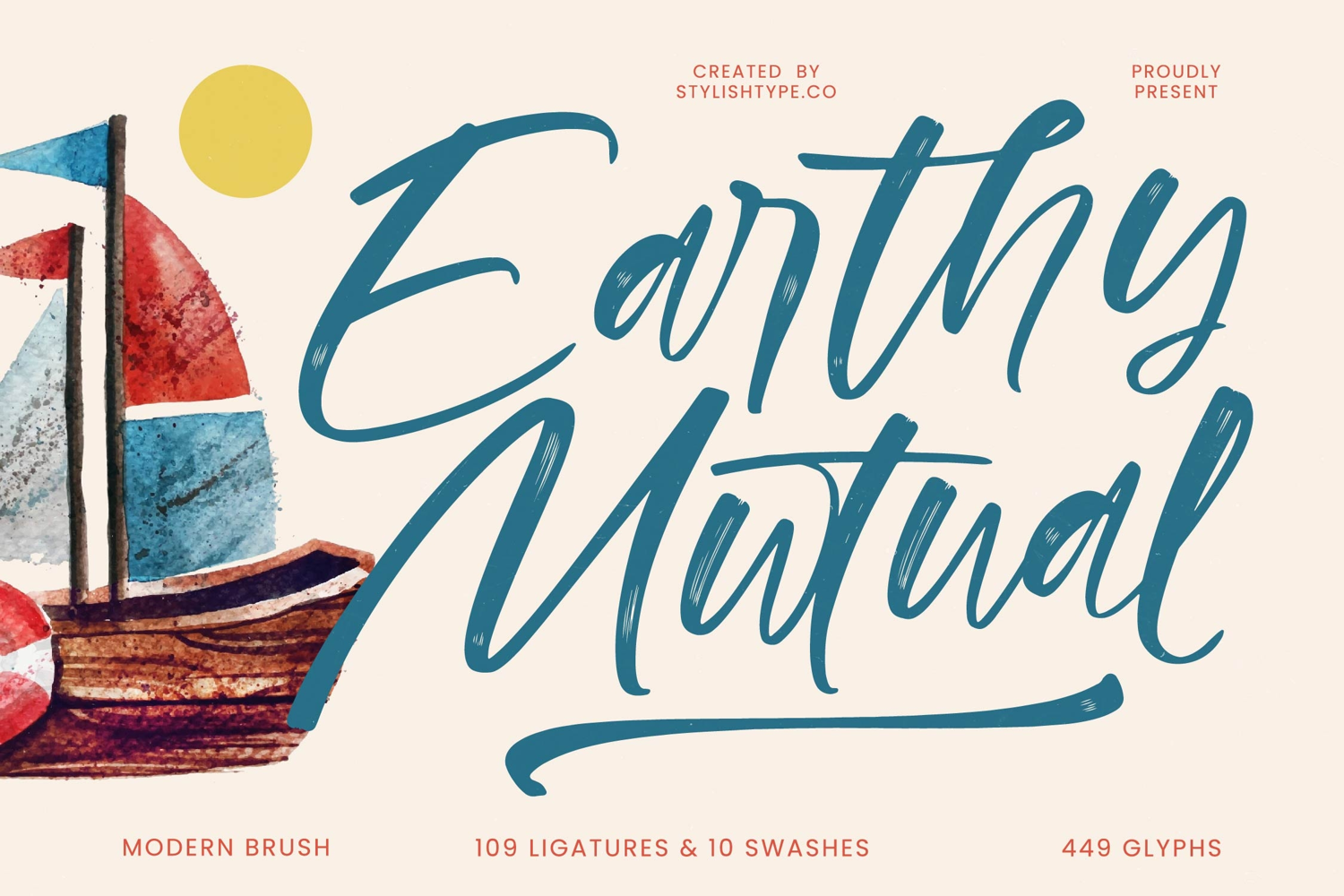
Earthy Mutual - Modern Brush Script
Earthy Mutual Italic
Earthy Mutual
Unlock unparalleled creative potential with robust typographic features. Designed for seamless professional integration, Earthy Mutual - Modern Brush Script comes fully equipped with 109 meticulously crafted ligatures and 10 dynamic swashes. These extensive OpenType features allow designers to achieve highly custom-look typography without the heavy lifting of manual illustration. This rich glyph set dramatically increases the font’s aesthetic variability, ensuring titles and headers maintain flow and maximum design flexibility.